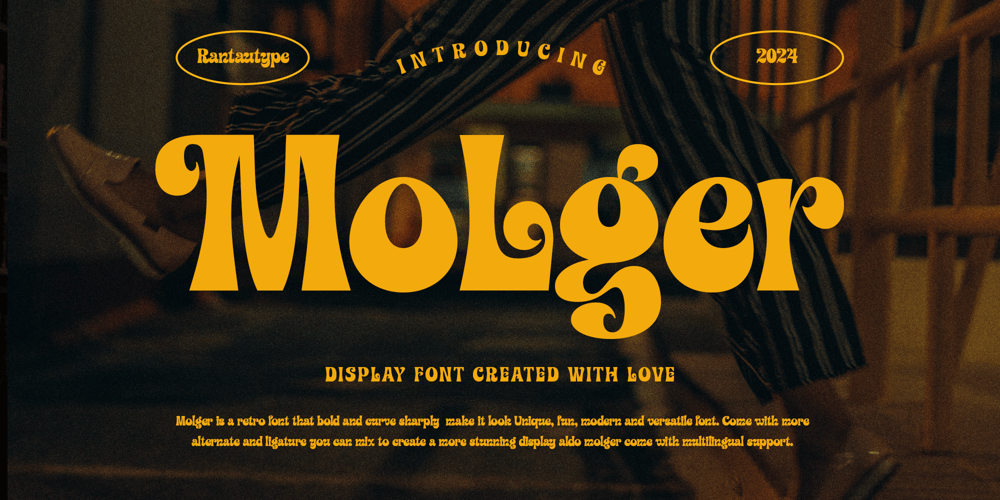
Molger
Molger font
Molger Font Family was designed by Yudi Pratama Chandra and published by RantauType. Molger contains 2 styles and family package options. Molger is a retro font that bold and curve make it look Unique, fun, modern and versatile serif Font. Come with more alternate and ligature you can mix and max to create a more stunning display.Molger separate in reguler and italic, is a beautiful choice for any creative endeavor, creating fun, modern, chic, lifestyle design such as logos, title, cover, branding, display and magazine, and more. Now you have more choice when using Molger to make you design stand up!! What you have: Standar character A-Z and a-z Numberial and Functional Alternate and Ligature Works on PC & Mac Simple installations Accessible in Adobe Illustrator, Adobe Photoshop, Adobe InDesign, even work on Microsoft Word. PUA Encoded Characters – Fully accessible without additional design software. Fonts include Multilingual Support for: Afrikaans, Albanian, Asu, Basque, Bemba, Bena, Breton, Chiga, Cornish, Dutch, English, Estonian, Filipino, Finnish, Friulian, Galician, Gusii, Indonesian, Irish, Italian, Kabuverdianu, Kalenjin, Kinyarwanda, Luo, Luxembourgish, Luyia, Machame, Makhuwa-Meetto, Makonde, Malagasy, Manx, Morisyen, North, Ndebele, Nyankole, Oromo, Portuguese, Quechua, Romansh, Rombo, Rundi, Rwa, Samburu, Sango, Sangu, Scottish, Gaelic, Sena, Shambala, Shona, Soga, Somali, Spanish, Swahili, Swedish, Swiss, German.